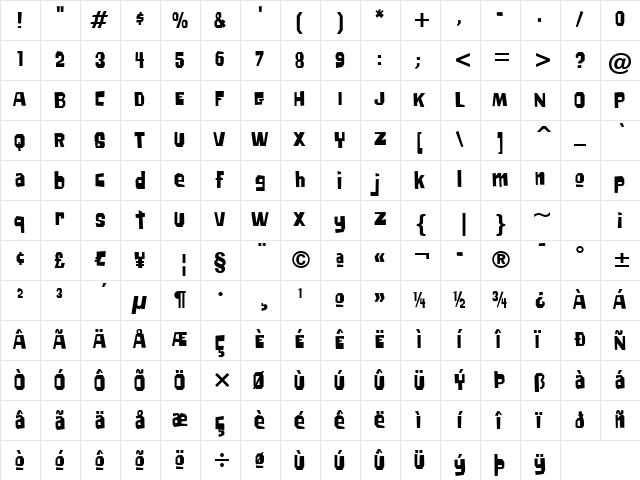
Big Chump BTN Cond Regular
Design Context for Big Chump BTN Cond Typeface
Big Chump BTN Cond is a composed and adaptable typeface that performs quietly and consistently across a wide range of design contexts. The condensed width makes it efficient for tight spaces without sacrificing legibility.